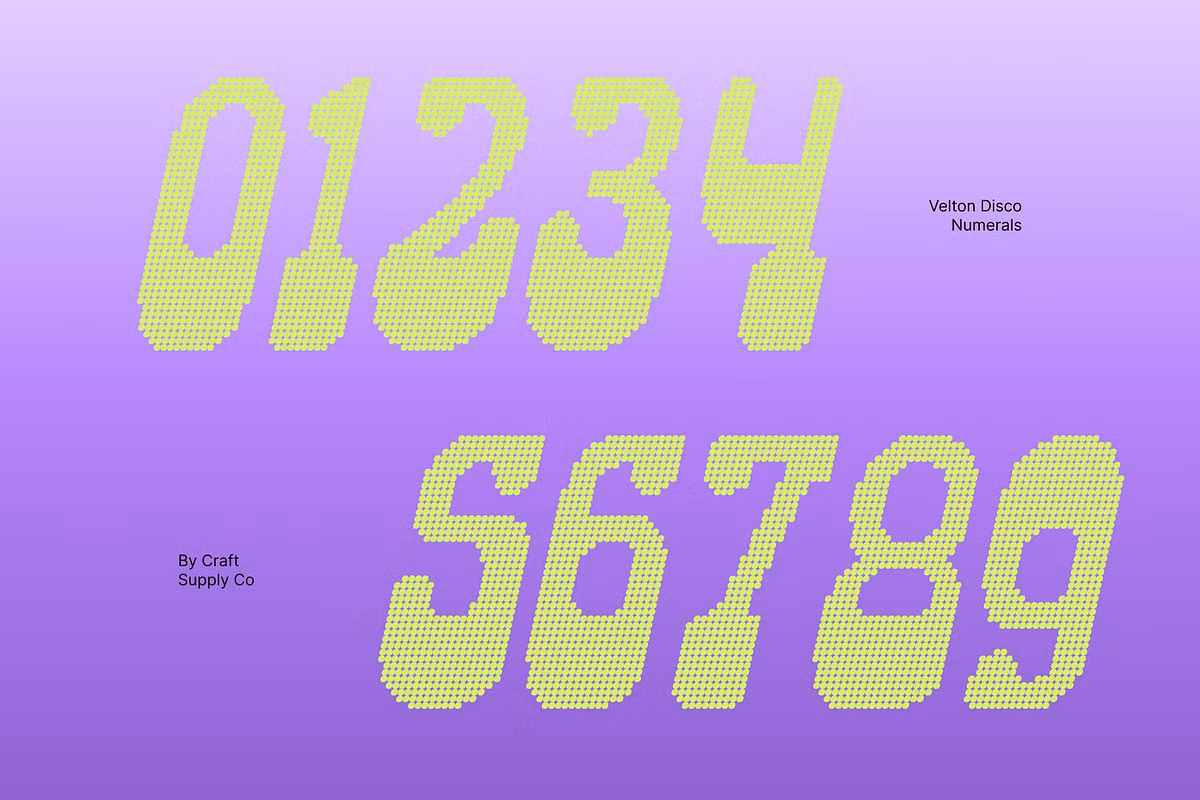
Velton Disco: Retro Reverse Contrast Display Font for Stylish Design
Velton Disco
Velton Disco: Retro Reverse Contrast Display Font for Stylish Design
Introducing Velton Disco: A Unique Typeface
Velton Disco is a really cool font that grabs your attention. It’s a special kind of font called a retro reverse contrast display font, which means it looks like it’s from the past but with a modern twist. This font is great for making a statement, and its bold personality shines through in its stylish design.
If you’re working on a project that needs a bit of flair, like a poster, a brand’s image, or a magazine layout, Velton Disco is a great choice. It’s all about capturing the fun and glamour of the disco era, and it’s perfect for anyone who loves classic design.
Visual representation of Velton Disco font style
Example of Velton Disco font style
Whether you’re going for a retro vibe or just want to add some excitement to your work, Velton Disco is definitely worth considering. Its unique look is sure to make your project stand out, and its versatility makes it a great option for a wide range of creative endeavors.
Design Style: Radiating Vintage Flair
Velton Disco has a really unique look, with letterforms that are kind of flipped around, giving it a fun, retro vibe. The way the letters are shaped is super careful and detailed, which makes you think of the flashy, exciting world of disco.
When you use this font, it’s like adding a splash of personality to your design – it’s playful, but also pretty sophisticated. What’s cool about Velton Disco is that it’s not just a font, it’s like a statement piece that can take your designs to the next level.
Colorful design showcasing Velton Disco font
Colorful design featuring Velton Disco font
The design of each character is carefully thought out to make sure it keeps its old-school feel while still being eye-catching and powerful. This font looks great in modern designs, combining the past and present in a really cool way.
Character Sets and Features
Velton Disco comes equipped with a comprehensive character set that includes uppercase and lowercase characters, numerals, and punctuation, adhering to OpenType standards. This makes the typeface highly functional for any design project that requires precision and clarity.
• Uppercase and Lowercase Characters: Perfect for headings, logos, and more.
• Numerals and Punctuation: Essential for any type of textual content.
• Accents and Multilingual Support: Ideal for global projects.
Illustration displaying various character sets of Velton Disco font
Illustration showing character sets of Velton Disco font
Use Cases: Ideal for Eye-Catching Designs
Velton Disco is really flexible, which makes it perfect for all sorts of design work. Let’s take a look at some of the main ways you can use this font to great effect:
• Party Posters: The energetic and lively design of Velton Disco makes it a perfect choice for advertisements promoting music events, parties, and gatherings.
• Nostalgic Branding: Brands looking to evoke a sense of nostalgia can utilize Velton Disco to connect with audiences on an emotional level.
• Funky Headlines: Whether for blogs, magazines, or social media, the boldness of this font ensures that your headlines grab attention.
• Editorial Layouts: The stylish design of Velton Disco can elevate magazine spreads, ensuring they look both modern and classic.
Pairing Suggestions: Complementing Your Designs
When it comes to typography, pairing fonts effectively can enhance your overall design. Velton Disco pairs beautifully with several other typefaces. Here are a few suggestions:
• The simple lines of Helvetica Neue go really well with the fun curves of Velton Disco, making everything look balanced and nice.
• Montserrat: This modern sans serif works well with the retro vibe of Velton Disco, adding legibility and sophistication.
• Playfair Display: For a more classic touch, pairing with a serif font like Playfair Display can create an elegant juxtaposition that draws the eye.
Experimenting with these pairings can lead to stunning results that enhance the overall aesthetic of your project while maintaining the integrity of Velton Disco’s unique style.
What makes Velton Disco stand out is its retro vibe, which gives your designs a glamorous and nostalgic feel that really grabs people’s attention. Whether you’re working on a project that needs a bit of flair or just want to add some personality to your design, Velton Disco is a great choice.
It’s perfect for making a statement and taking your creative work to the next level. With its eye-catching design and stylish energy, Velton Disco is sure to resonate with your audience and leave a lasting impression.